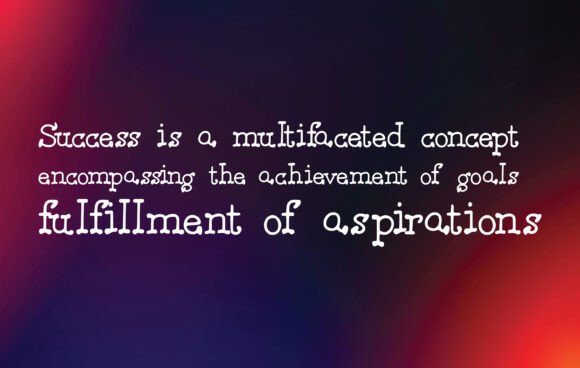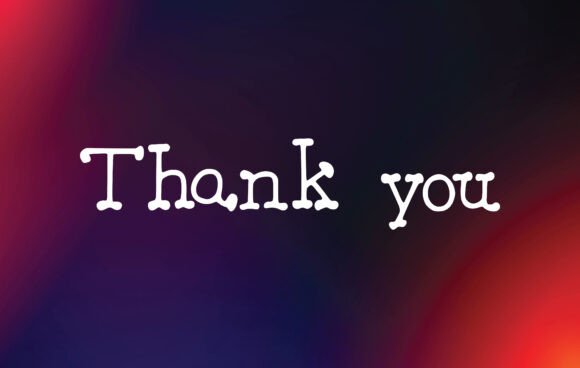
Introduction to Malkova Font
Remember the rush of excitement when you stumble upon the perfect design resource? The one that makes your creative project come alive, and you can’t wait to share it with the world? For designers, that moment is priceless, and it’s exactly what the Malkova Font promises to deliver.
With its lovely and beautiful handwritten style, the Malkova Font has the potential to elevate your design to the next level. Whether you’re working on a logo, branding, or a quote, this high-quality font is sure to make a lasting impression. Plus, its versatility and wide range of applications make it an invaluable asset for any creative project.
What sets the Malkova Font apart is its attention to detail, from its smooth, flowing lines to its transparent background, which makes it perfect for layering and customization. And the best part? It’s available for a free download, making it an accessible and valuable resource for designers of all levels.
Key Features of Malkova Font
- High-quality design resource suitable for creative projects, including logos, branding materials, and digital art.
- Comes with a transparent background, allowing for seamless integration with various design elements and backgrounds.
- Features a clean and modern design aesthetic, making it perfect for contemporary design projects and creative endeavors.
- Has a medium-sized font size, ideal for body text and titles, with a resolution of 300 DPI for high-quality printing and digital display.
- Designed to be highly legible and versatile, making it suitable for various design applications, from print materials to digital interfaces.
Honest Review: Malkova Font
I recently had the chance to work with the Malkova Font, a free download that’s quickly become a design resource I rely on for my creative projects. Here’s my honest take on what I like and don’t like about this font.
- High-quality design: The Malkova Font boasts beautiful, elegant lines that add a touch of sophistication to any text.
- Transparency: With its transparent background, this font is perfect for overlaying on images or using as a watermark.
- Limited customization options: While the font itself is great, I wish there were more ways to customize it to fit specific design needs.
- Not suitable for large-scale text: The font works best for small to medium-sized text, but it can become difficult to read when used for larger text.
Overall, the Malkova Font is a fantastic addition to any designer’s toolkit. Its unique design and transparent background make it a great choice for creative projects, and the fact that it’s free is a major bonus. While it may have some limitations, I’ve found it to be a valuable resource that I’ll continue to use in my designs.
Introduction to Malkova Font
Malkova Font is a high-quality design resource ideal for creative projects. Its unique style and versatility make it a great addition to any design portfolio.
Tips for Getting the Most Out of Malkova Font
To get the most out of Malkova Font, use it on a transparent background to create a striking design. You can also experiment with different font sizes and styles to add depth and interest to your project.